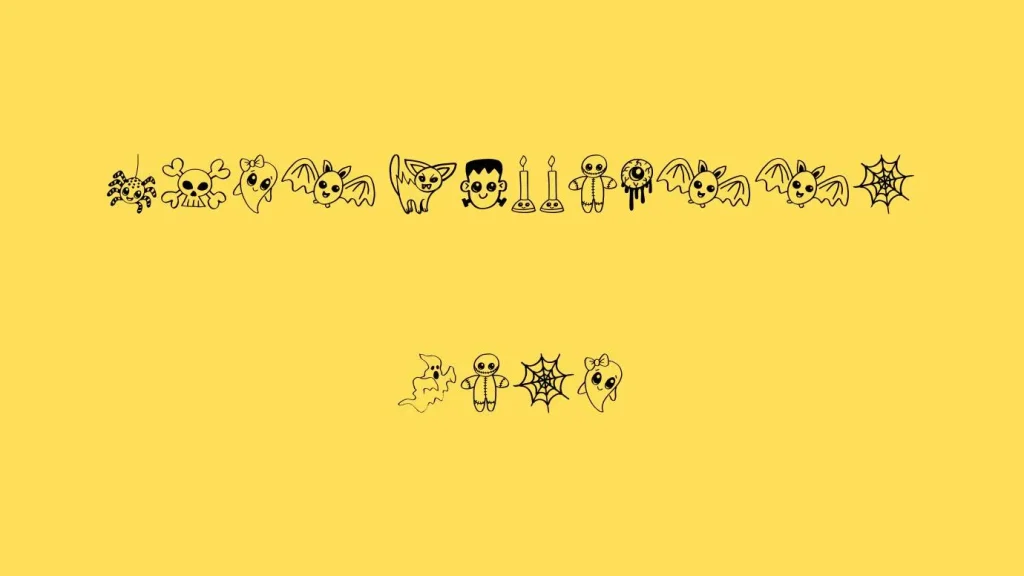
Cute Halloween Drawings Font Free Download
Jonathan S. Harris created the dingbat’s style the design has a different and unique feature it has a fashionable feel as well.
The main objective of the Cute Halloween Drawings Font style is to develop a distinctive and stylish appearance that can be useful for any kind of project. The font weights have great texture and a clear design.
NameCute Halloween Drawings Font
Style Dingbats
Designer Jonathan S. Harris
Cute Halloween Drawings Font
What type of font is Cute Halloween Drawings Font?
It belongs to the dingbats category in the font family and is a very modern and classic typeface.
Where we can use the Cute Halloween Drawings typeface?
Brands that are famous for their clothing use this marvelous font in their logos. As well as it can be used for various projects, like comic book designs, coloring books, etc.